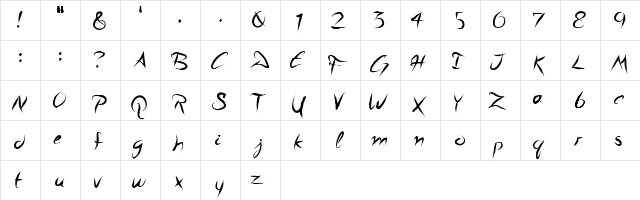
A Quiet Sleep Regular
| Foundry | John Gauthier |
| Designer | John Gauthier |
Design Context for A Quiet Sleep Typeface
A Quiet Sleep is a composed and adaptable typeface that performs quietly and consistently across a wide range of design contexts.